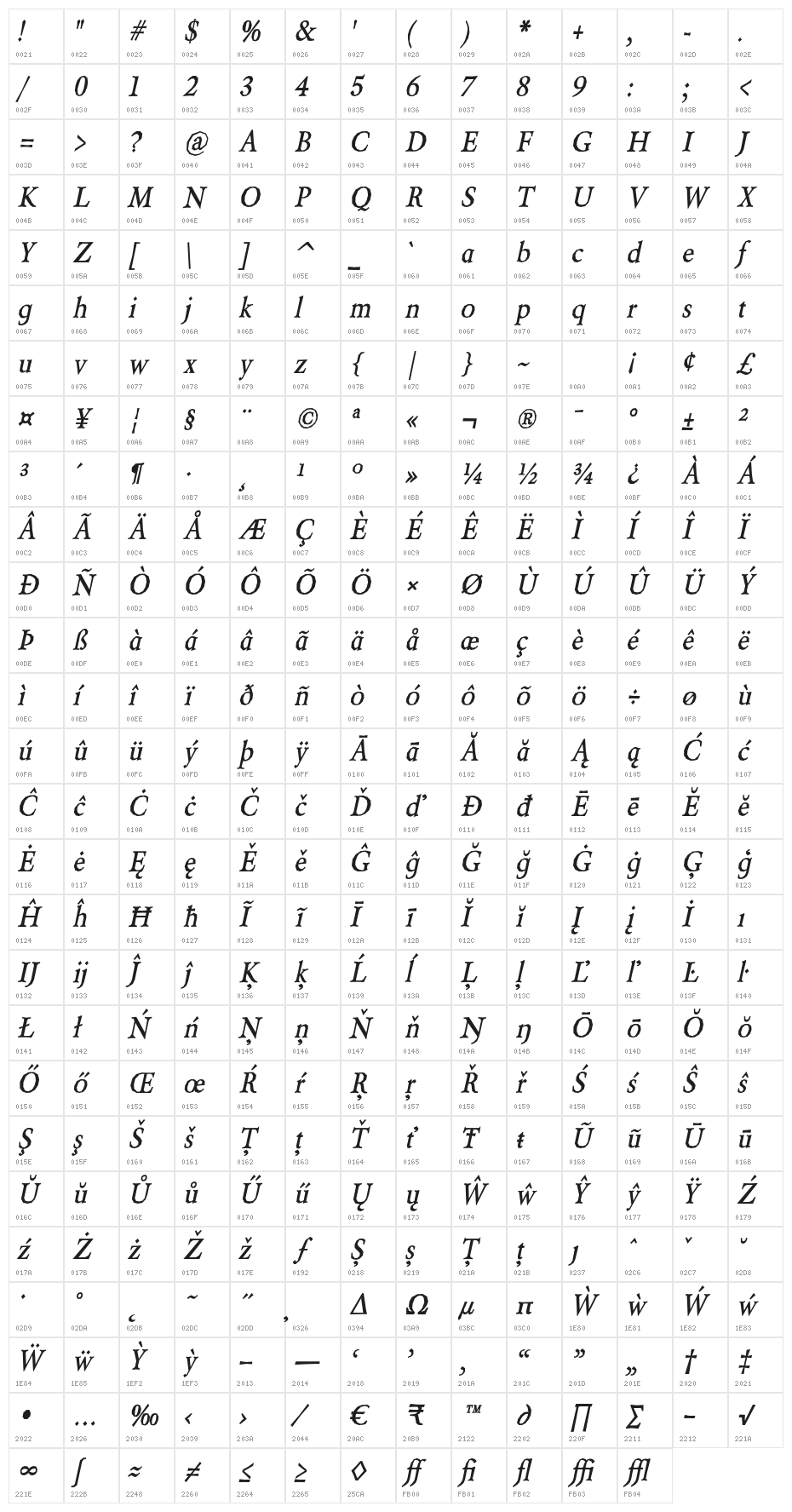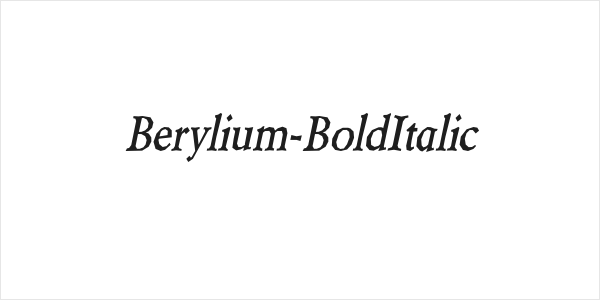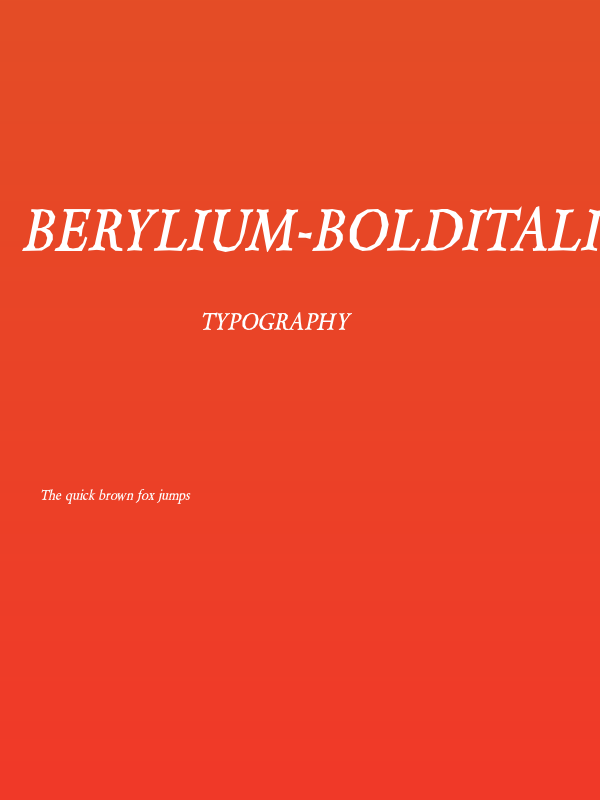
Berylium-BoldItalic Font
Berylium-BoldItalic Description
This font features a dynamic and elegant italic style with a bold weight, giving it a strong presence. The characters are slightly slanted, enhancing the sense of motion and sophistication. The serifs are pronounced, adding a classic touch to the overall modern design. The numerals and special characters maintain the same bold and italicized characteristics, ensuring consistency across all glyphs. This font's high contrast between thick and thin strokes adds to its readability and visual appeal.